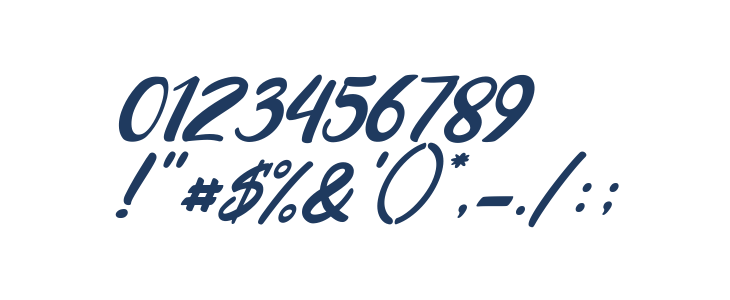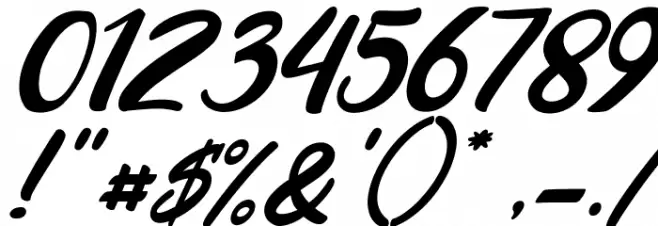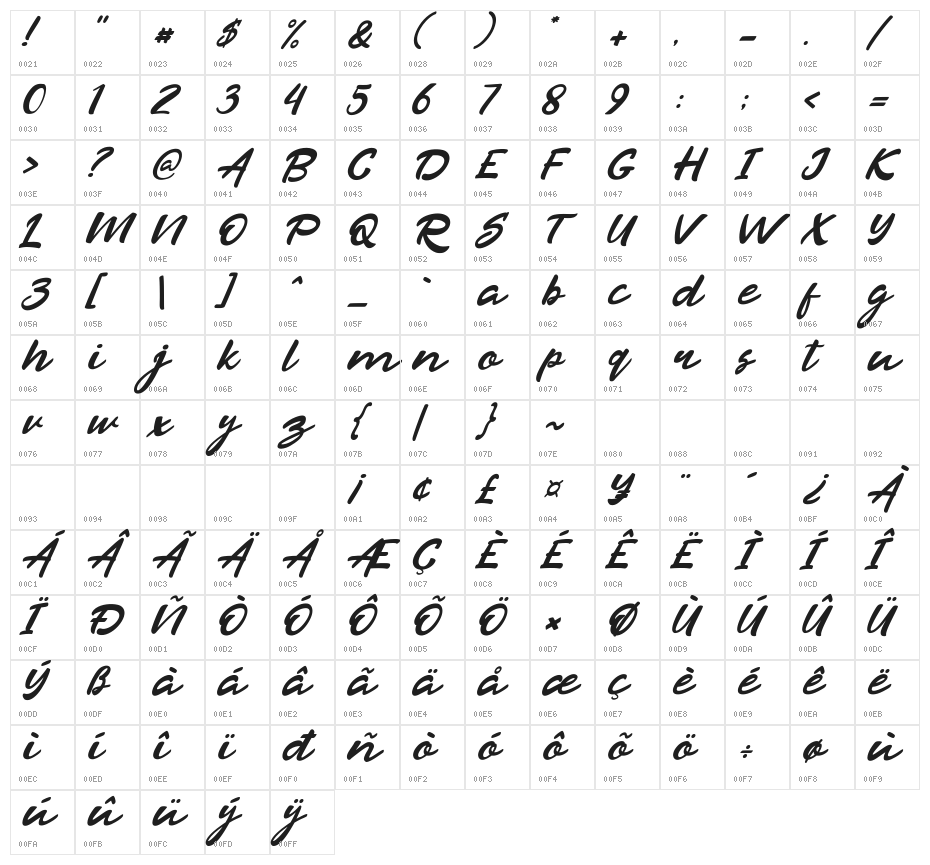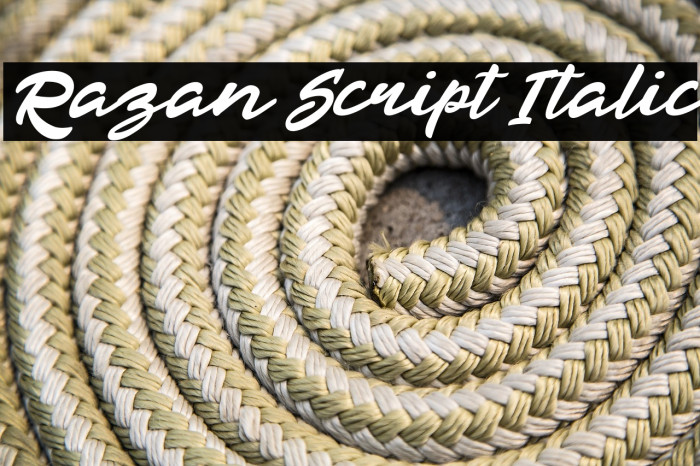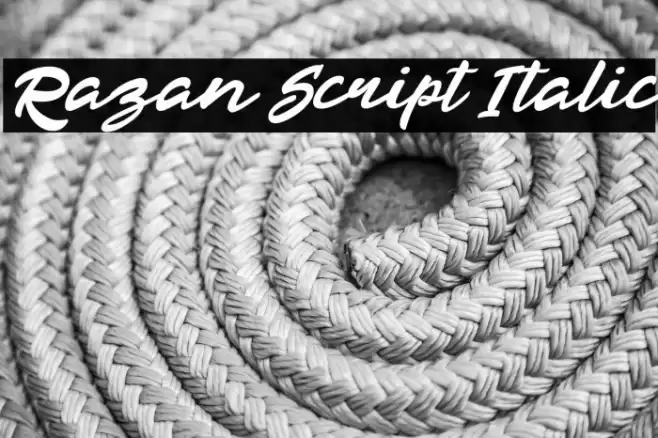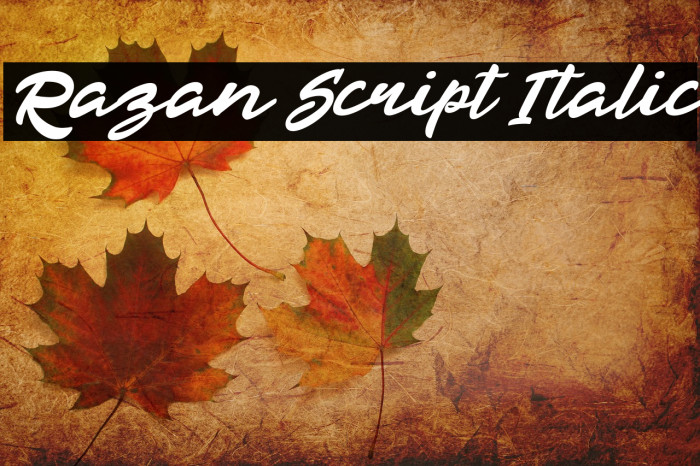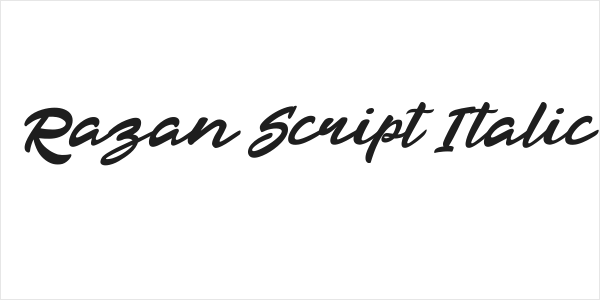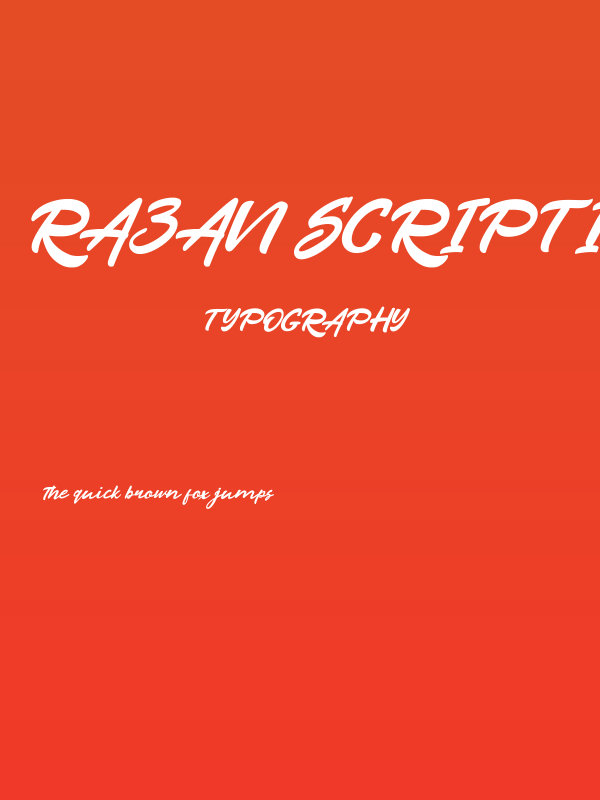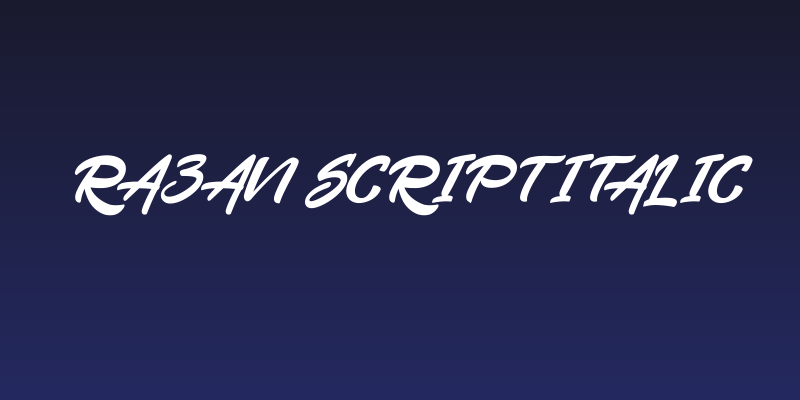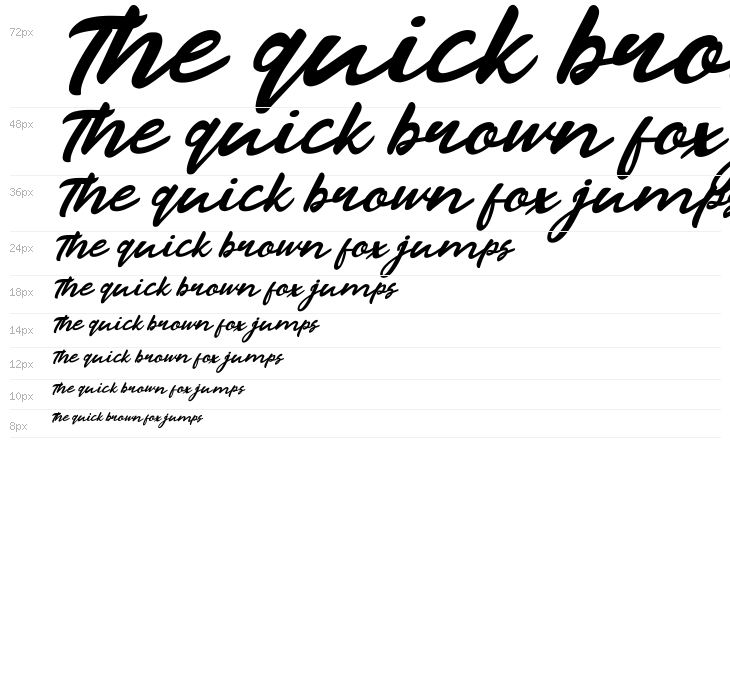
Razan Script Italic Font
Razan Script Italic Description
This font features a dynamic and flowing script style with a pronounced italic slant, giving it a sense of movement and elegance. The characters are interconnected, mimicking the fluidity of handwriting, which adds a personal touch to the text. The strokes are bold and confident, with a consistent thickness that maintains readability while providing a strong visual impact. The uppercase letters are slightly larger, enhancing the font's presence, while the lowercase letters maintain a smooth and cohesive flow. Numbers and special characters are designed to match the overall style, ensuring uniformity across different uses.
| Proposed Projects | Ideal for branding, invitations, greeting cards, and any project requiring a personal, elegant touch. |